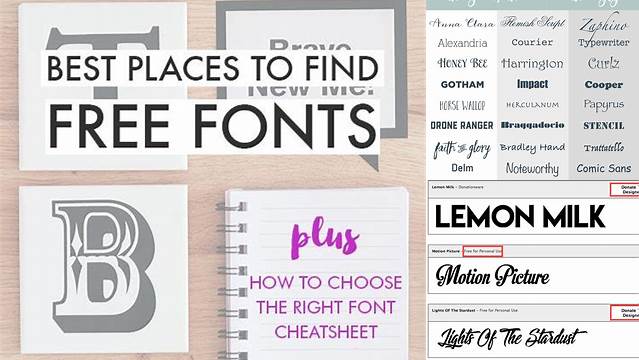
Find Free Fonts: Your Ultimate Guide To Typography
Finding the perfect font can be a game-changer for any design project, whether it's crafting a stunning website, designing eye-catching marketing materials, or simply making your personal projects stand out. But let's face it, high-quality fonts can often come with a hefty price tag. That's where the magic of free fonts comes in! In this comprehensive guide, we'll dive deep into the world of find free fonts, exploring everything you need to know to discover amazing typography without breaking the bank. We'll cover where to look, what to consider, and how to use these fonts effectively to elevate your designs. So, buckle up, design enthusiasts, and let's embark on this font-finding adventure!
Where to Find Free Fonts: Unveiling the Best Resources
Top Websites for Downloading Free Fonts
When it comes to find free fonts, the internet is your oyster! Numerous websites offer a vast selection of fonts, catering to various styles and needs. Some of the most popular and reliable platforms include Google Fonts, DaFont, Font Squirrel, and Behance. Google Fonts, for instance, is a powerhouse of open-source fonts, making them perfect for web projects. DaFont, on the other hand, boasts a massive library of user-submitted fonts, offering a diverse range of styles, from elegant scripts to quirky display fonts. Font Squirrel is renowned for its curated collection of high-quality, commercially licensed free fonts, ensuring you can use them without worry in your professional endeavors. Finally, Behance, Adobe's creative platform, often features designers who generously share their font creations for free. Each of these websites offers a unique flavor and collection, so exploring them all is highly recommended. Remember, while these platforms are great, always double-check the licensing terms to ensure the font aligns with your intended usage, whether it's for personal or commercial projects. By understanding the nuances of each platform, you'll be well-equipped to find free fonts that perfectly complement your design aspirations. Happy font hunting!
Exploring Font Foundries Offering Free Fonts
Delving into the world of independent font foundries is another fantastic way to find free fonts. Many foundries, both established and emerging, offer a selection of their fonts for free as a way to showcase their talent and attract potential customers. This can be a goldmine for discovering unique and high-quality typefaces that you won't find on the larger font websites. Some notable foundries that frequently offer free fonts include Lost Type Co-op, The League of Movable Type, and various individual designers who host their work on platforms like Creative Market or their personal websites. By directly engaging with font foundries, you often gain access to fonts that are crafted with meticulous detail and a distinct artistic vision. Moreover, you're supporting independent creators, which is always a plus! When find free fonts from foundries, be sure to subscribe to their newsletters or follow them on social media, as they often announce new freebies and promotions through these channels. And, as always, carefully review the licensing terms associated with each font to ensure it aligns with your project requirements. Discovering fonts through foundries adds a touch of exclusivity to your designs, setting them apart with unique typography.
Using Font Management Software for Free Font Organization
Once you start to find free fonts and build your collection, managing them can quickly become a challenge. That's where font management software comes to the rescue! These tools help you organize, activate, and preview your fonts, ensuring a smooth workflow. While some font management software comes with a price tag, there are several excellent free options available. FontBase, for instance, is a popular choice, offering a clean interface and robust features for managing both your system fonts and those stored in the cloud. Another great option is NexusFont, which allows you to create font libraries, tag fonts, and even compare different typefaces side-by-side. Using font management software not only helps you keep your fonts organized but also prevents font conflicts and system slowdowns. Imagine trying to sift through hundreds of fonts manually – it's a designer's nightmare! With these tools, you can quickly find the perfect font for your project, saving valuable time and effort. So, if you're serious about typography and want to find free fonts efficiently, investing in font management software is a smart move. It's like having a personal librarian for your font collection!
Finding the Right Font for Your Project: A Design Perspective
Matching Fonts with Different Design Styles
The art of find free fonts goes beyond just downloading a typeface; it's about selecting fonts that harmoniously complement your design style. Each font carries its own personality and emotional weight, so choosing the right one can significantly impact the overall message and aesthetic of your project. For instance, a sleek and modern design might benefit from a clean sans-serif font like Open Sans or Montserrat, which exude simplicity and clarity. On the other hand, a vintage-inspired design could be enhanced by a classic serif font like Playfair Display or a script font like Pacifico, which evoke a sense of nostalgia and elegance. If you're working on a project that requires a playful and whimsical touch, consider using a display font with unique characteristics, such as Lobster or Luckiest Guy. When find free fonts, it's also crucial to consider the context in which the font will be used. A font that looks stunning in a large headline might not be legible in smaller body text. Experiment with different font pairings to create visual interest and hierarchy. Try combining a serif font for headings with a sans-serif font for body text, or vice versa. Ultimately, the key is to choose fonts that not only reflect the tone and style of your project but also enhance its readability and visual appeal. By mastering the art of font pairing, you can elevate your designs from good to extraordinary.
Considering Font Readability and Legibility
When you find free fonts, remember that aesthetics aren't everything. Readability and legibility are paramount, especially when it comes to body text and user interfaces. Readability refers to how easily a block of text can be read and understood, while legibility refers to how easily individual characters can be distinguished from one another. A font might look beautiful, but if it's difficult to read, it defeats the purpose of communication. Several factors contribute to font readability, including the font's x-height (the height of lowercase letters), the spacing between letters and words, and the contrast between the text and the background. Fonts with a larger x-height tend to be more readable, as the lowercase letters are more prominent. Adequate spacing prevents the letters from crowding together, making the text easier to scan. High contrast between the text and the background ensures that the text stands out clearly. Legibility, on the other hand, is influenced by the distinctiveness of the letterforms. Fonts with unique and well-defined characters are more legible than those with similar-looking letters. When you find free fonts, it's a good practice to test them in different sizes and contexts to assess their readability and legibility. Print out samples of text in the font and see how they look in various lighting conditions. Preview the font on different screens to ensure it renders well across devices. By prioritizing readability and legibility, you can ensure that your message is effectively communicated, regardless of the design style you choose.
Utilizing Font Pairing Techniques for Visual Harmony
Once you find free fonts, the next challenge is often figuring out how to pair them effectively. Font pairing is the art of combining two or more fonts in a way that creates visual harmony and enhances the overall design. A well-chosen font pairing can elevate your design from mundane to magnificent, while a poorly chosen pairing can create visual clutter and confusion. A classic technique for font pairing is to combine a serif font with a sans-serif font. Serifs, with their small decorative strokes, tend to convey a sense of tradition and formality, while sans-serifs, with their clean lines, often feel more modern and minimalist. Pairing these two styles can create a balanced and visually appealing contrast. For example, you might pair a serif font like Merriweather for headings with a sans-serif font like Open Sans for body text. Another approach is to use fonts from the same font family but with different weights or styles. This creates a cohesive look while still adding visual interest. For instance, you could use a bold weight of Montserrat for headings and a regular weight for body text. When you find free fonts and are experimenting with pairings, it's important to consider the personality and tone of your project. A playful design might call for a more whimsical pairing, while a professional design might require a more conservative approach. Tools like FontPair and Adobe Fonts offer curated font pairings that can serve as a great starting point. Ultimately, the best way to master font pairing is to experiment and develop your own eye for what works. Don't be afraid to try different combinations and see what resonates with you.
Free Fonts for Specific Design Projects: Tailoring Your Choices
Best Free Fonts for Web Design
When embarking on a web design project, the typography you choose plays a pivotal role in shaping the user experience. The fonts need to be not only visually appealing but also highly readable across various devices and screen sizes. This is where find free fonts specifically optimized for web use becomes crucial. Google Fonts is an invaluable resource in this regard, offering a vast library of open-source fonts that are designed to render beautifully on the web. Some standout options include Open Sans, a versatile sans-serif that works well for both headings and body text, and Roboto, another popular choice known for its clean and modern aesthetic. Lato is another excellent sans-serif font that offers a balanced and readable design, making it ideal for extended text passages. For headings and titles, consider fonts like Montserrat or Raleway, which provide a touch of elegance and sophistication. When you find free fonts for web design, it's also important to consider factors like font weight and style variations. Having access to different weights (e.g., light, regular, bold) allows you to create visual hierarchy and emphasis within your content. Additionally, ensure that the fonts you choose load quickly to avoid impacting your website's performance. By carefully selecting web-optimized fonts, you can create a visually engaging and user-friendly online experience that keeps visitors coming back for more.
Suitable Free Fonts for Logo Design
Crafting a memorable logo often hinges on the perfect font choice, making find free fonts that are well-suited for logo design a crucial task. A logo font needs to be distinctive, legible, and adaptable to various sizes and applications. It should also embody the brand's personality and values. For a modern and minimalist logo, consider using sans-serif fonts like Montserrat, Bebas Neue, or Poppins. These fonts offer clean lines and a contemporary feel, making them ideal for tech startups, creative agencies, or businesses that want to project a sense of innovation. If you're aiming for a more classic and sophisticated look, serif fonts like Playfair Display, Merriweather, or Libre Baskerville can add a touch of elegance and tradition. These fonts work well for brands in industries like finance, law, or luxury goods. Script fonts, such as Pacifico or Lobster, can lend a personal and artistic touch to a logo, but they should be used sparingly and with careful consideration. They are best suited for brands that want to convey creativity, craftsmanship, or a handmade feel. When you find free fonts for logo design, remember to test them in different sizes and contexts to ensure they remain legible and impactful. Consider how the font will look on business cards, websites, and other marketing materials. A well-chosen logo font can be a powerful asset in building brand recognition and creating a lasting impression.
Best Free Fonts for Print Design Projects
When venturing into the realm of print design, the choice of fonts takes on a unique significance. Unlike web design where fonts are rendered on screens, print design requires fonts that translate beautifully onto physical materials like paper and cardstock. Find free fonts that are optimized for print ensures that your designs maintain clarity, readability, and visual appeal. Serif fonts, with their elegant serifs and traditional aesthetic, often excel in print environments. Fonts like Times New Roman, Garamond, and Baskerville are timeless classics that have stood the test of time, offering excellent readability in body text and a refined look for headings. Sans-serif fonts can also work well in print, especially for headings and shorter blocks of text. Helvetica, Arial, and Open Sans are popular choices for their clean lines and modern feel. When you find free fonts for print, it's crucial to consider the weight and style variations available. Using different weights can help create visual hierarchy and emphasis, while italic styles can add a touch of elegance and sophistication. Additionally, pay attention to the font's kerning and tracking to ensure proper spacing between letters and words. Before finalizing your font choices, it's always a good idea to print out test samples to see how the fonts look in physical form. This allows you to assess their readability and make any necessary adjustments to ensure your print designs look their absolute best.
Advanced Tips for Free Font Hunting: Getting the Most Out of Your Search
Using Font Identification Tools to Find Similar Free Fonts
Ever stumbled upon a stunning font in a design and wondered what it is? Or perhaps you love a specific typeface but need a free alternative? This is where font identification tools become your secret weapon in the quest to find free fonts. These ingenious online tools allow you to upload an image or provide a URL, and they'll analyze the font and identify it or suggest similar free options. WhatFontIs, for example, is a popular choice that boasts a vast database of fonts and a user-friendly interface. You simply upload an image of the font, and the tool will attempt to match it or provide a list of close matches. Another excellent option is WhatTheFont, powered by MyFonts, which offers similar functionality and a wealth of font-related resources. Font Identifier is another handy tool that uses artificial intelligence to recognize fonts with impressive accuracy. When you find free fonts using these tools, it's important to keep in mind that the results are not always perfect. The accuracy of the identification depends on the quality of the image and the complexity of the font. However, these tools can provide a valuable starting point in your search, helping you discover new typefaces and find free alternatives to premium fonts. By leveraging font identification tools, you can expand your font library and elevate your design projects without breaking the bank.
Subscribing to Font Newsletters and Following Designers
One of the most effective ways to find free fonts and stay in the loop about new releases and promotions is to subscribe to font newsletters and follow designers and foundries on social media. Many font creators and distributors offer newsletters that provide exclusive deals, free font downloads, and early access to new typefaces. These newsletters are a treasure trove of typographic inspiration and a fantastic way to build your font collection without spending a fortune. Similarly, following font designers and foundries on platforms like Twitter, Instagram, and Behance can keep you informed about their latest work and freebies. Designers often share their creations and offer free fonts as a way to engage with their audience and promote their work. By being an active member of the typography community, you'll gain access to a wealth of knowledge, inspiration, and, of course, free fonts. When you find free fonts through these channels, it's a great way to support the creators whose work you admire. Leave comments, share their fonts with your network, and consider purchasing their premium fonts when your budget allows. Building relationships with font designers can also lead to valuable insights and opportunities for collaboration. So, if you're passionate about typography, subscribing to newsletters and following designers is a must. It's a win-win situation that benefits both you and the creators you support.
Participating in Online Design Communities and Forums
Engaging with online design communities and forums is another fantastic way to find free fonts, exchange ideas, and expand your typographic knowledge. These platforms bring together designers, typographers, and font enthusiasts from all over the world, creating a vibrant ecosystem for learning and collaboration. Websites like Dribbble, Behance, and Reddit's r/typography subreddit are excellent resources for discovering new fonts and getting feedback on your designs. Dribbble and Behance are visual platforms where designers showcase their work, often including font information and free downloads. Reddit's r/typography is a dedicated community where users discuss all things typography, share font resources, and ask for recommendations. Forums like TypeDrawers and Typophile offer in-depth discussions on font design, history, and usage, providing a wealth of information for both beginners and experienced typographers. When you find free fonts and participate in these communities, you not only gain access to a vast pool of knowledge but also build valuable connections with other creatives. Sharing your work and seeking feedback can help you refine your design skills and develop your eye for typography. Additionally, many designers in these communities generously share their own font creations for free, making it a goldmine for discovering unique and high-quality typefaces. By actively participating in online design communities, you can stay inspired, expand your font library, and connect with a network of like-minded individuals who share your passion for typography.
Common Mistakes to Avoid When Using Free Fonts: Ensuring Professional Results
Overusing Too Many Fonts in a Single Project
One of the most common pitfalls designers fall into when they find free fonts is the temptation to overuse them. Just because you have a vast collection of typefaces doesn't mean you should use them all in a single project! A cluttered design with too many fonts can look amateurish and confusing, diluting your message and detracting from the overall aesthetic. The key to effective typography is to exercise restraint and choose fonts that complement each other and the overall design style. A good rule of thumb is to stick to a maximum of two or three fonts per project. This allows you to create visual hierarchy and interest without overwhelming the viewer. When you find free fonts and are selecting your typefaces, consider their personalities and how they work together. Do they share similar characteristics, such as x-height or weight? Do they create a pleasing contrast? A classic approach is to pair a serif font with a sans-serif font, using one for headings and the other for body text. However, there are no hard and fast rules, and experimentation is encouraged. The goal is to create a cohesive and harmonious typographic palette that enhances your design and effectively communicates your message. By avoiding the temptation to overuse fonts, you can create a more professional and impactful design.
Neglecting to Check Font Licensing Terms
When you find free fonts, the excitement of discovering a new typeface can sometimes overshadow the crucial step of checking the licensing terms. Neglecting to do so can lead to serious legal issues down the road. As we discussed earlier, font licenses dictate how you can use a font, whether it's for personal or commercial projects. Using a font in a way that violates its license can result in copyright infringement, which can be costly and damaging to your reputation. Before you incorporate a free font into any project, take the time to carefully read the license agreement. Look for clauses that specify the permitted uses, any limitations, and whether you need to purchase an extended license for certain applications. If the license terms are unclear, don't hesitate to contact the font designer or foundry for clarification. It's always better to be safe than sorry. When you find free fonts, organize your font library and keep track of the licenses for each typeface. This will make it easier to ensure that you're using your fonts legally and ethically. By prioritizing font licensing, you can protect your designs and avoid any potential legal headaches. Remember, a little due diligence goes a long way in ensuring that you can use your fonts with confidence and peace of mind.
Using Low-Quality or Poorly Designed Free Fonts
The allure of find free fonts can sometimes lead designers down a slippery slope of using low-quality or poorly designed typefaces. While there are many fantastic free fonts available, there are also plenty of subpar options that can detract from your design and make it look unprofessional. A poorly designed font might have inconsistent letterforms, awkward spacing, or rendering issues that make it difficult to read. It might lack the nuances and refinements that distinguish a high-quality typeface. When you find free fonts, it's essential to exercise discernment and evaluate the quality of each typeface before incorporating it into your project. Look for fonts that are well-crafted, legible, and versatile. Check for consistent letterforms, proper spacing, and a range of weights and styles. Test the font in different sizes and contexts to ensure it performs well. Don't be afraid to be selective and reject fonts that don't meet your standards. Remember, your typography is a reflection of your design skills and professionalism. Using high-quality fonts, even if they're free, can elevate your work and create a lasting impression. By avoiding low-quality typefaces, you can ensure that your designs look polished and professional, no matter your budget.
Future Trends in Free Fonts: What to Expect
The Rise of Variable Fonts
As technology evolves, so does the world of typography. One of the most exciting trends in the font industry is the rise of variable fonts. Variable fonts are a single font file that can contain multiple variations of a typeface, such as weight, width, and slant. This allows designers to fine-tune the appearance of a font with greater precision and flexibility than ever before. When you find free fonts, variable fonts offer significant advantages over traditional fonts. They are more efficient in terms of file size, as a single variable font file can replace multiple static font files. They also allow for smoother and more responsive typography on the web, as the font can adapt to different screen sizes and resolutions. Several foundries and designers are already experimenting with variable fonts, and we can expect to see more free variable fonts become available in the future. Google Fonts is a major proponent of variable fonts, and its library includes a growing number of variable typefaces. As variable font technology matures, it will likely become a standard feature in web design and other applications. If you're a designer who wants to stay ahead of the curve, it's worth exploring the world of variable fonts and experimenting with their capabilities. The future of typography is dynamic, and variable fonts are poised to play a major role in shaping that future.
Increased Availability of Open-Source Fonts
Another trend to watch in the realm of find free fonts is the increasing availability of open-source typefaces. Open-source fonts are fonts that are released under licenses that allow for free use, modification, and distribution. This means that designers can use these fonts in their projects without worrying about licensing fees or restrictions. Open Font License (OFL), is the most commonly used open-source license for fonts, and it grants broad permissions for both personal and commercial use. The growing popularity of open-source fonts is driven by a desire for greater accessibility and collaboration in the design community. Designers and foundries are increasingly sharing their work under open-source licenses as a way to give back to the community and foster innovation. Google Fonts has played a significant role in promoting open-source fonts, and its library is a treasure trove of high-quality open-source typefaces. As the open-source movement continues to gain momentum, we can expect to see even more free fonts become available under these permissive licenses. This trend is a boon for designers, especially those who are working on a limited budget. Open-source fonts provide a wealth of typographic options without compromising on quality or creativity. By embracing open-source typography, designers can contribute to a more collaborative and accessible design ecosystem.
The Integration of AI in Font Design and Discovery
Artificial intelligence (AI) is rapidly transforming various industries, and the world of typography is no exception. AI is being used in font design to automate certain tasks, generate new typeface designs, and even personalize fonts for individual users. When we find free fonts in the future AI-powered tools may also revolutionize the way designers discover and select typefaces. Imagine a tool that can analyze your design project and suggest the perfect fonts based on your specific needs and preferences. AI could also be used to identify fonts in images with greater accuracy and speed, making font identification tools even more powerful. While AI is unlikely to replace human font designers entirely, it has the potential to augment their creativity and efficiency. AI-powered font design tools can handle repetitive tasks, allowing designers to focus on the more creative aspects of the process. AI can also help designers explore new typographic possibilities by generating variations and combinations that they might not have considered otherwise. As AI technology continues to advance, we can expect to see even more innovative applications in the world of font design and discovery. The integration of AI has the potential to make typography more accessible, personalized, and efficient for designers of all levels.
By following this guide, you'll be well-equipped to find free fonts and use them to create stunning designs. Happy font hunting, guys!